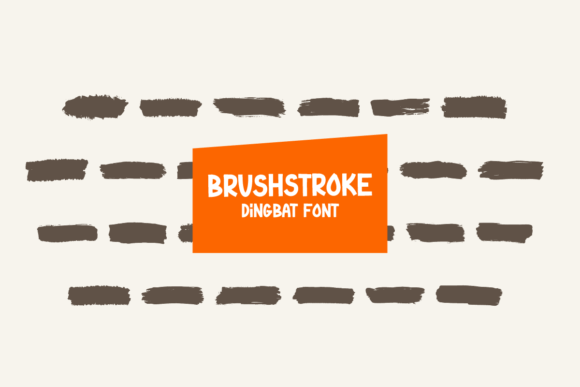
Welcome to the wonderful world of Brushstroke Font, the ultimate dingbats font family designed to ignite your creativity and transform your designs into captivating masterpieces. Brushstroke Font is not just a collection of fonts; it's an artistic toolbox that empowers you to add a touch of playful charm and vibrant expression to all your projects.
Picture this: you're working on a Cricut cutting project, and you want to add a little something extra to make it truly unique. With Brushstroke Font, you can effortlessly incorporate adorable doodles, whimsical illustrations, and eye-catching symbols. Unleash your imagination and let the fonts guide you as you create personalized cards, heartwarming invitations, delightful stickers, and so much more.
Brushstroke Font is more than just a font; it's a creative companion that sparks joy and brings a smile to your face. Its playful and vibrant style is perfect for adding a personal touch to your designs, making them stand out from the crowd. Whether you're a seasoned designer or just starting, Brushstroke Font is your key to unlocking a world of endless creative possibilities.
So, why settle for ordinary fonts when you can immerse yourself in the enchanting world of Brushstroke Font? Embark on a creative journey where your imagination knows no bounds. Let Brushstroke Font be your muse as you turn your designs into captivating works of art.